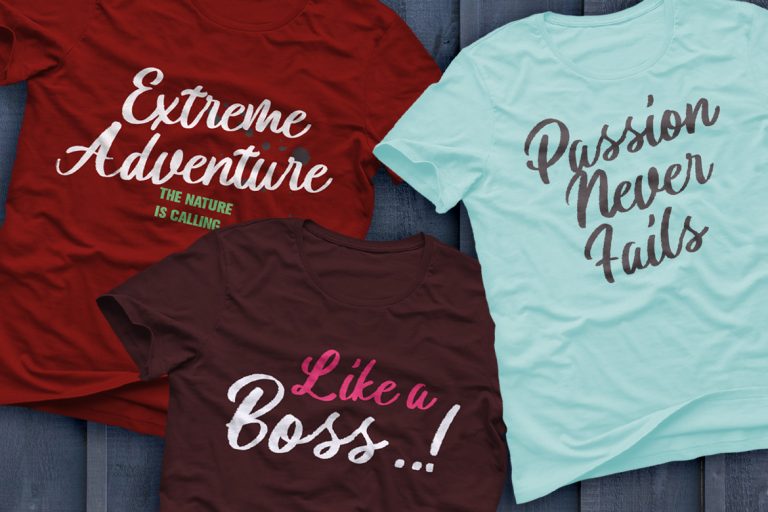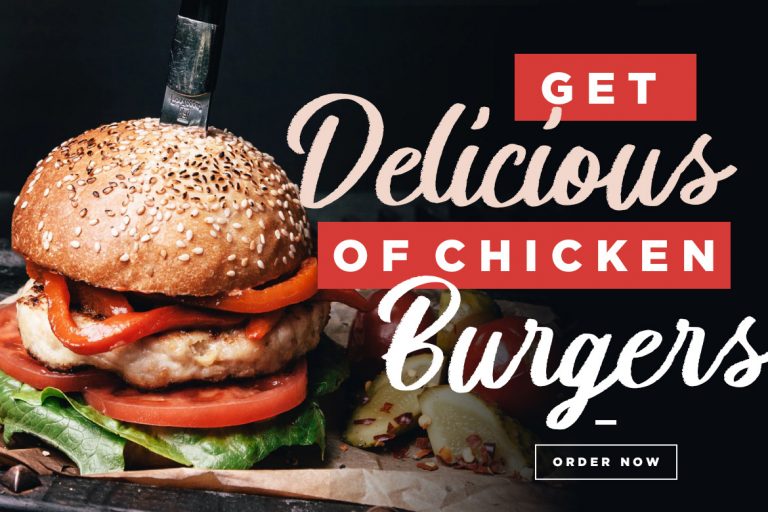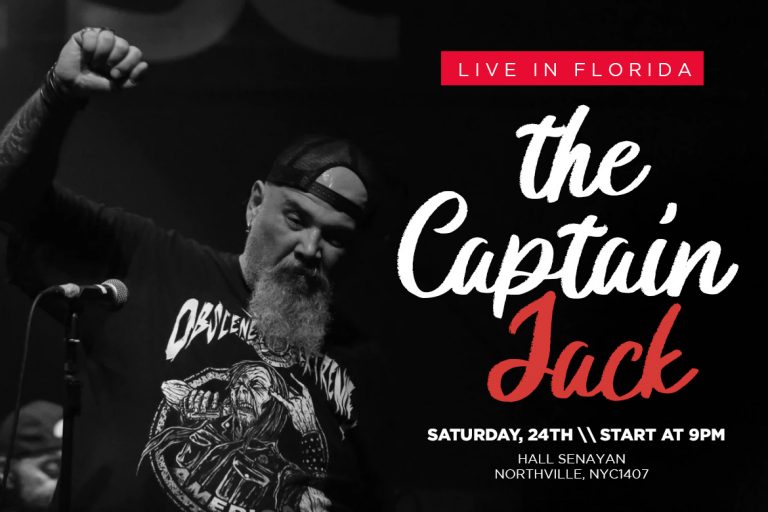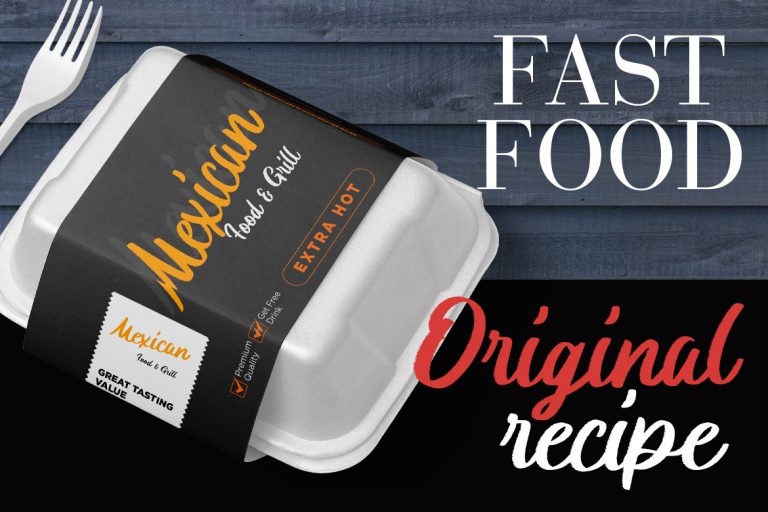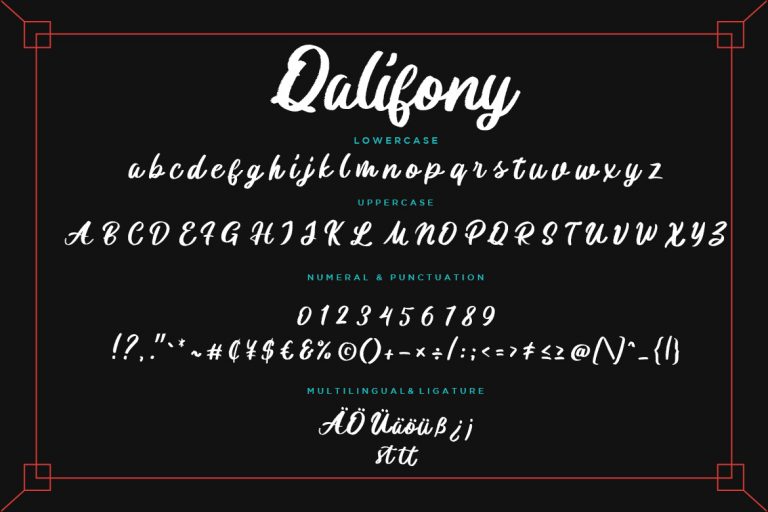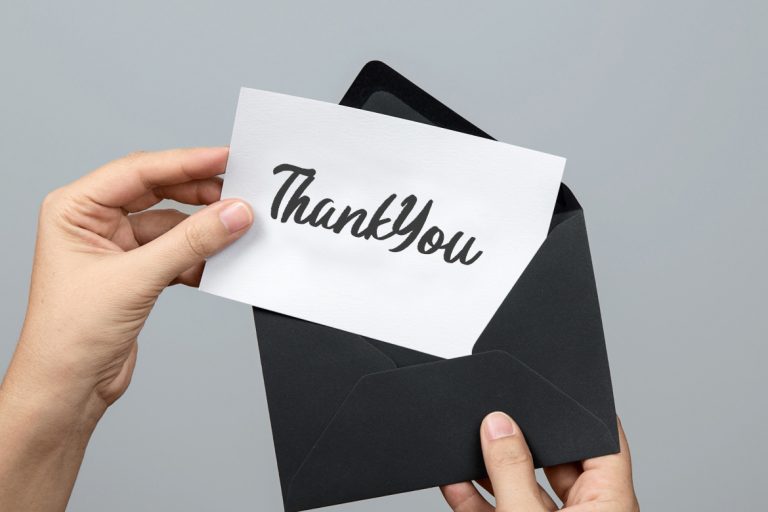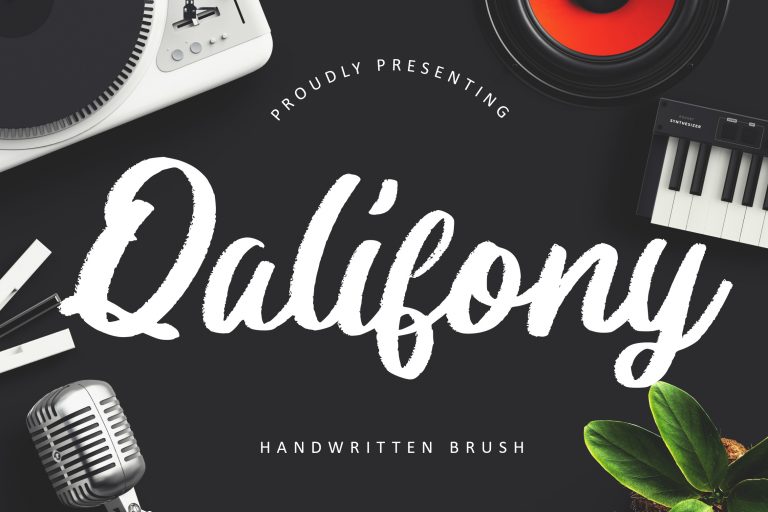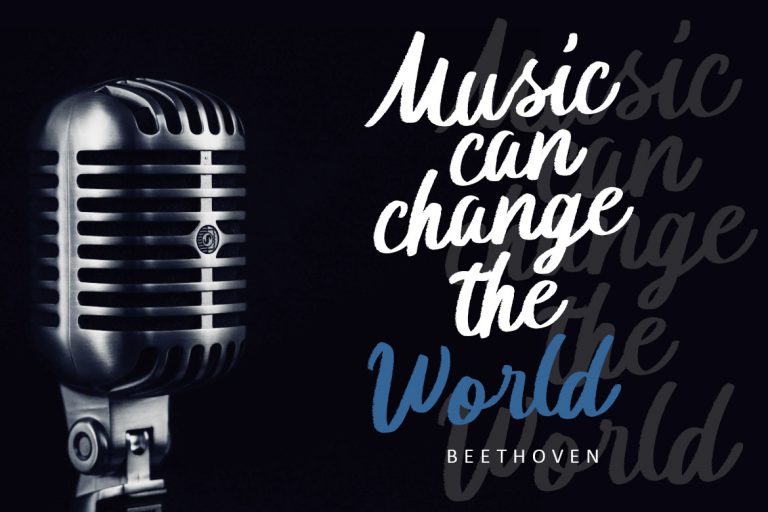
Qalifony is handwritten brush script that natural scratch, perfect for your awesome latest project.
Qalifony is perfect for branding projects, logo, wedding designs, social media posts, advertisements, product packaging, product designs, label, photography, watermark, invitation, stationery and any projects that need handwriting taste.
- Fonts include multilingual support for; ä ö ü Ä Ö Ü ß ¿ ¡
Qalifony Handwritten Brush